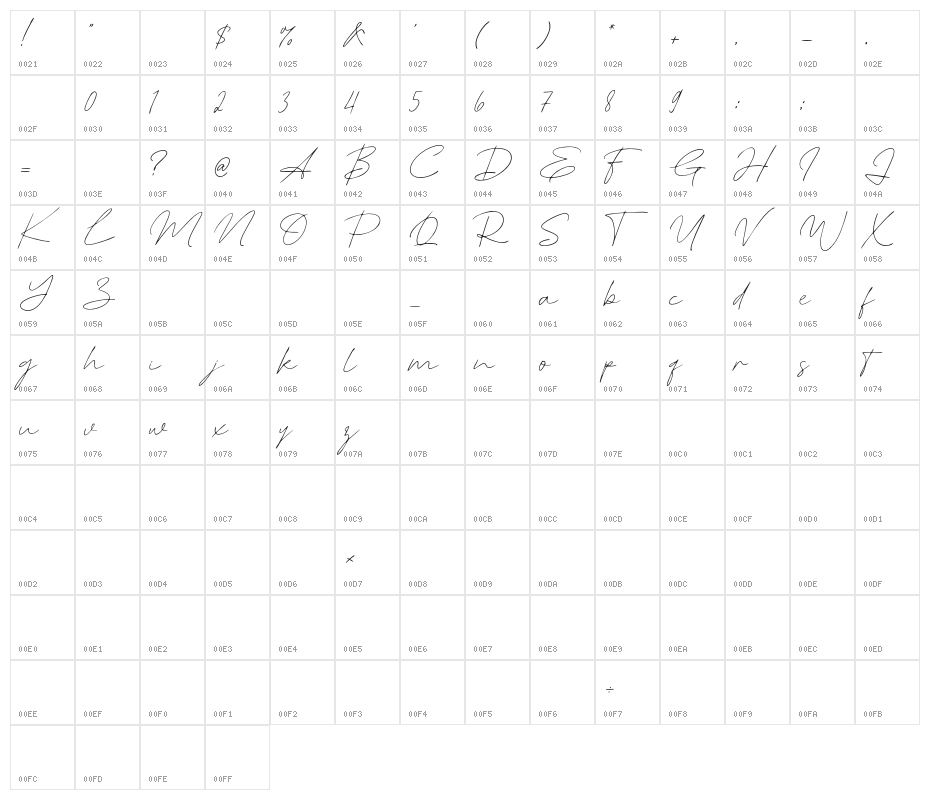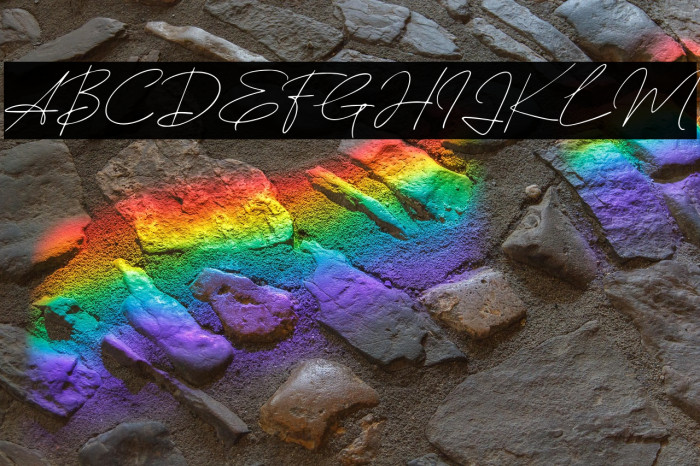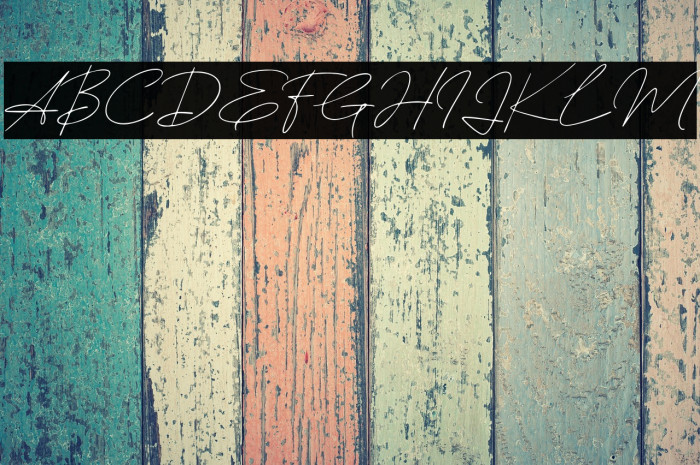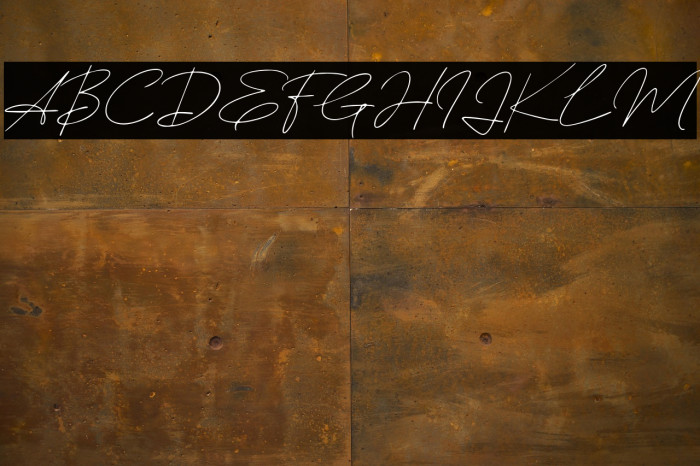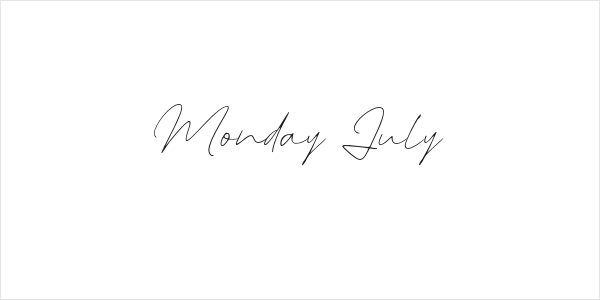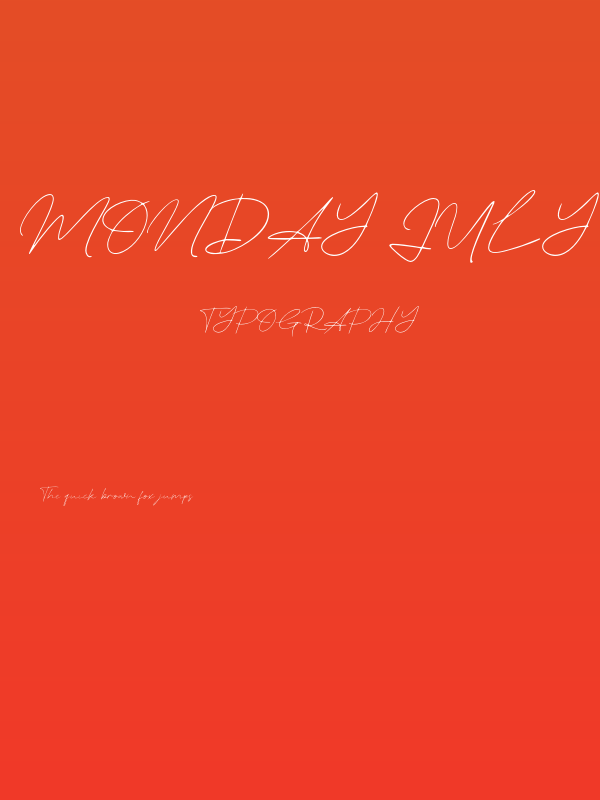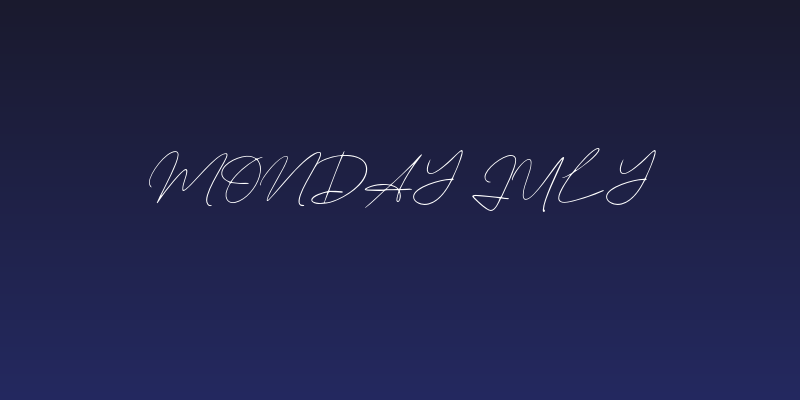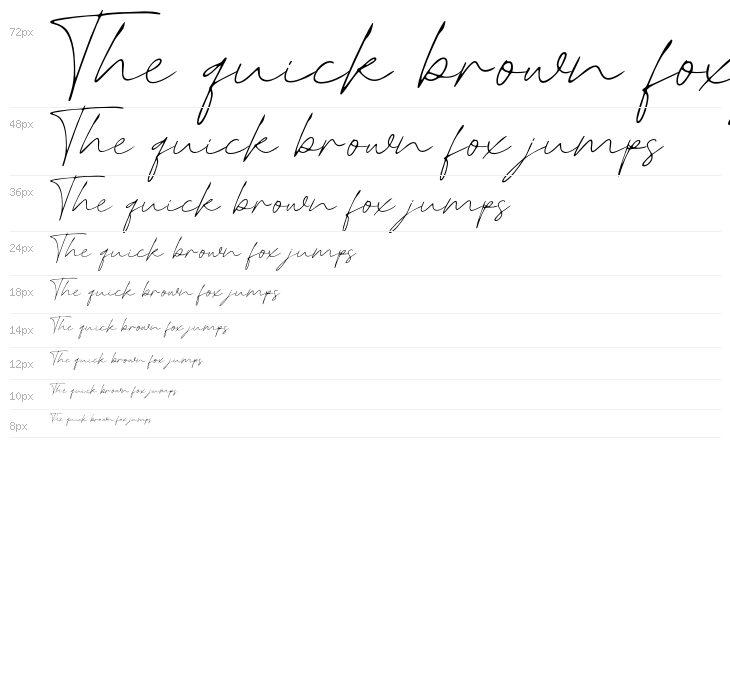
Monday July Font
Monday July Description
This font exudes a casual, handwritten style with a flowing, cursive script that mimics natural handwriting. The letters are elegantly connected, providing a seamless and fluid appearance. The strokes are thin and delicate, giving it a light and airy feel. The uppercase and lowercase letters maintain a consistent style, with slight variations that add to its charm. Numbers and special characters are crafted with the same attention to detail, ensuring a cohesive look across all elements. This font is perfect for projects that require a personal touch, such as invitations, greeting cards, or branding materials.
| Overall Style | Casual, Elegant |
| Use Case | Invitations, Greeting cards, Personal branding |
| Proposed Projects | Ideal for wedding invitations, personal branding, greeting cards, and creative projects requiring a personal touch. |